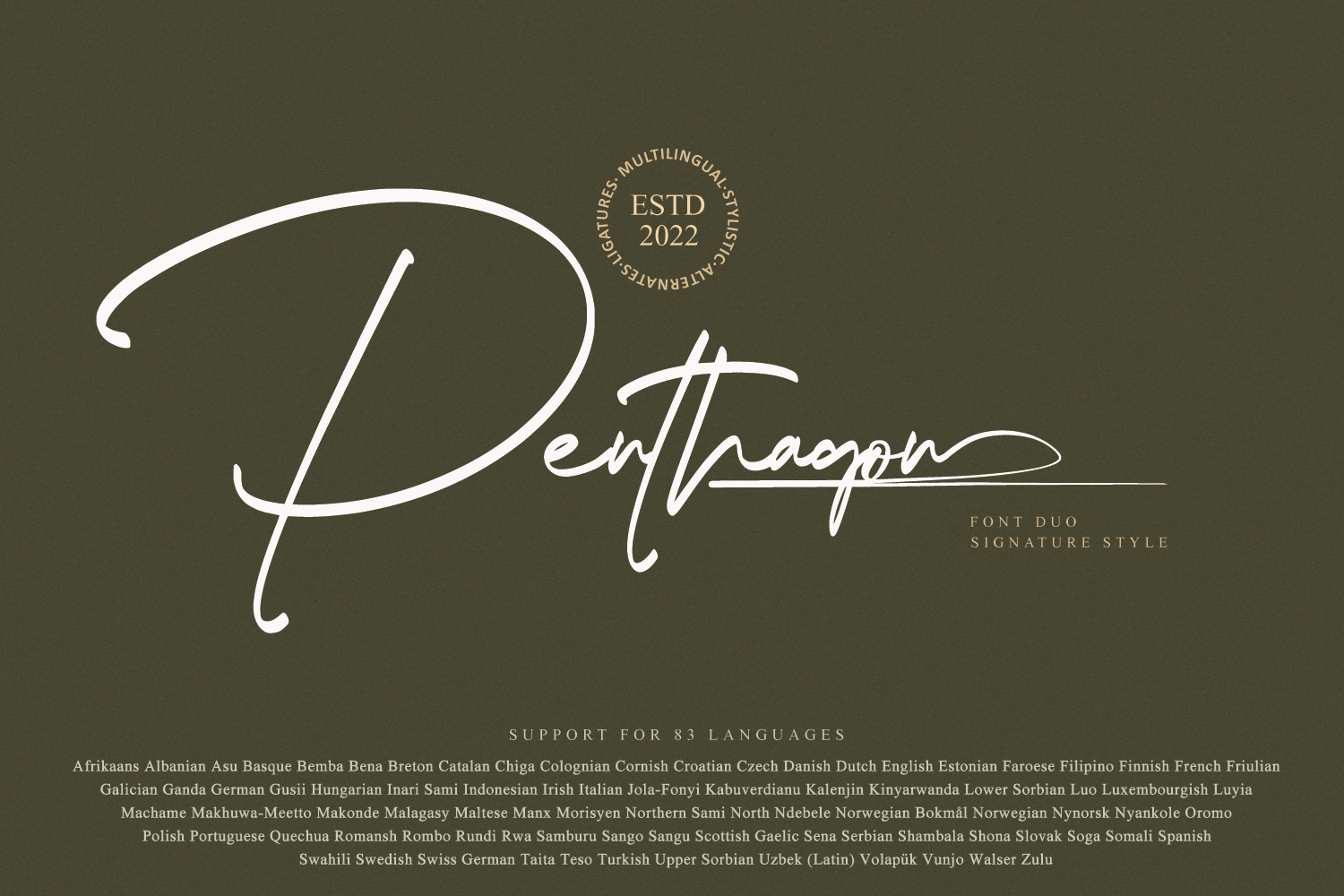
Penthagon // Script Font Duo
Are you going to make your business changes more widely known? Find the solution by giving a small touch to the design of your product promo using a natural and contemporary font style !
Penthagon is Script Font Duo with elegant and signature style, that are very beautiful,luxurious,and high class for creating handwritten-style logos, wedding stationery, photographer watermarks logos, modern websites, fashion branding, name card, wedding invitation, and all the identity of your business products.
-Multilingual Support for 83 Country -Ligature collection -PUA Encoded -Numerals and Punctuation